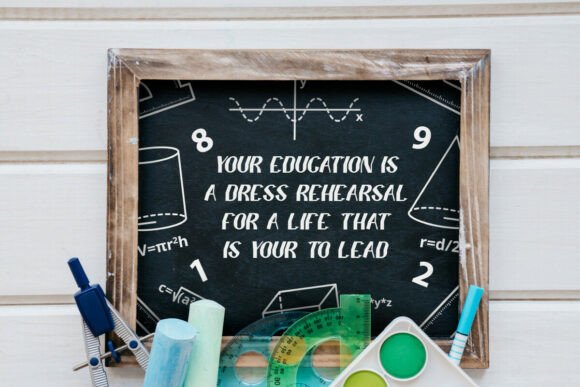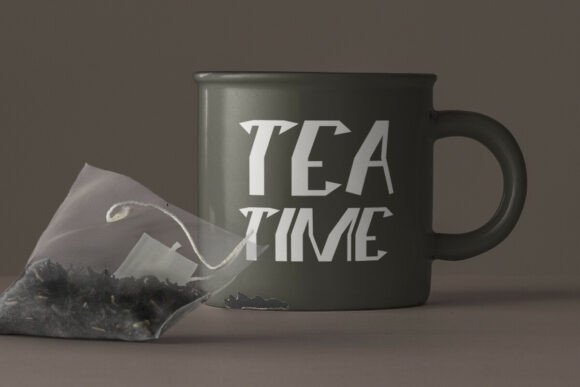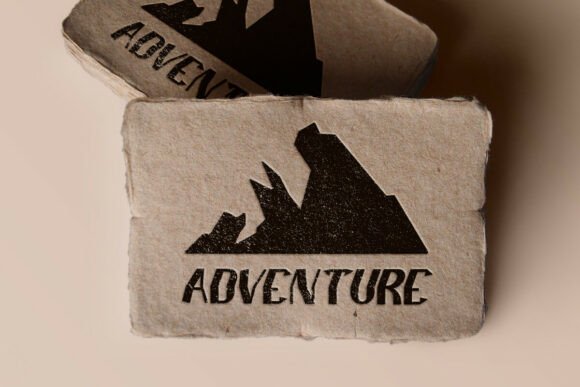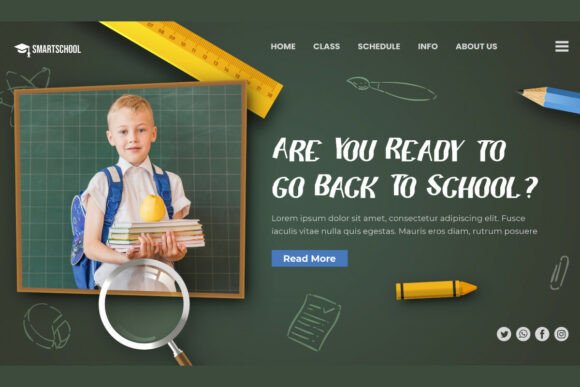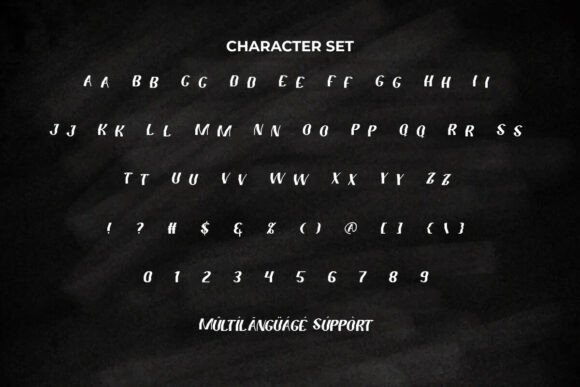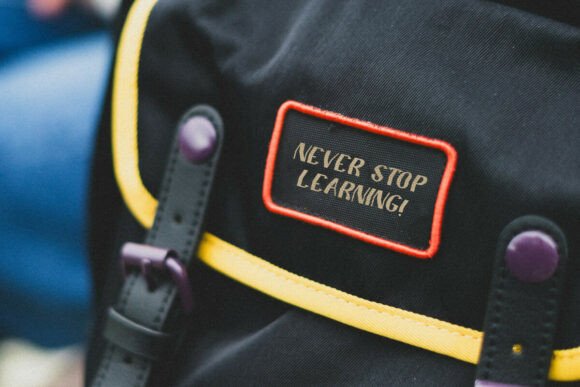
Introduction to Hacker School Font
Hacker School Font is a unique techno and web security inspired display font with a distinctive look of contemporary letter imagery.
This typeface combines organic details with strong geometric shapes It will be chic and attractive which will bring personality and vibrancy to your design, making it visually appealing and interesting.